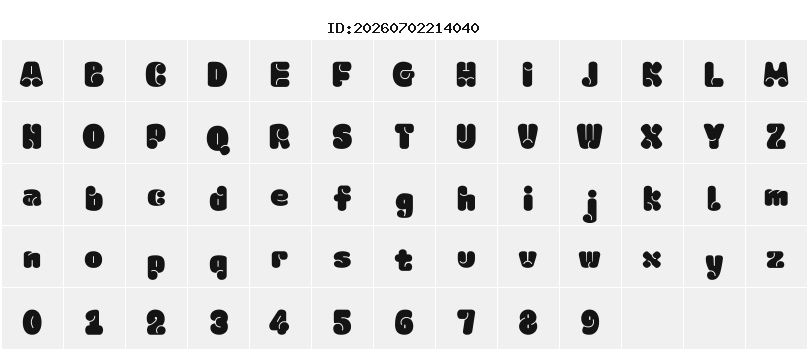
A018-Sounso Pastoral Preview
• Font Name: A018-Sounso Pastoral
• Font ID: A018-Sounso Pastoral:Version 4.00
• Full Font Name: A018-Sounso Pastoral
• Version: Version 4.00 January 28, 2022
• PostScript Name: A018-SounsoPastoral
• Character Count: 804
• Manufacturer: 上首造字
About A018-Sounso Pastoral.ttf
A018-Sounso Pastoral.ttf is a modern, elegant sans-serif font designed for ultimate readability and visual harmony. Perfect for branding, headlines, web design, and print materials.